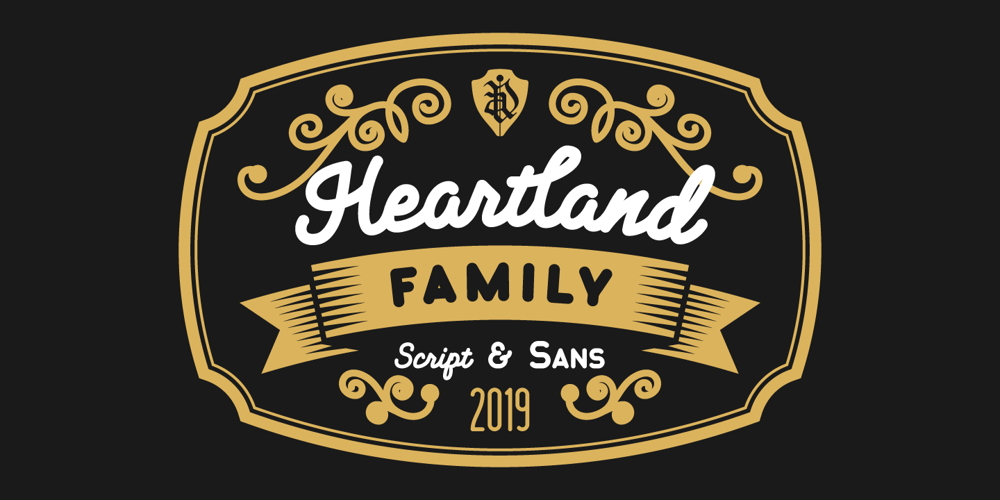
Heartland
Heartland font
Heartland Font Family was designed by Andriy Dykun and published by NREY. Heartland contains 5 styles and family package options. Heartland font family is a pack of the bold connected script and rounded sans. Font is great to use for logotype, menu and product labels, prints, posters, branding, social media. This pack include 3 fonts: – Heartland Script – Heartland Sans – Heartland Sans Condensed – Heartland Italic Sans – Heartland Bold Sans Download Heartland for your next project today! Thank you and have a great day!